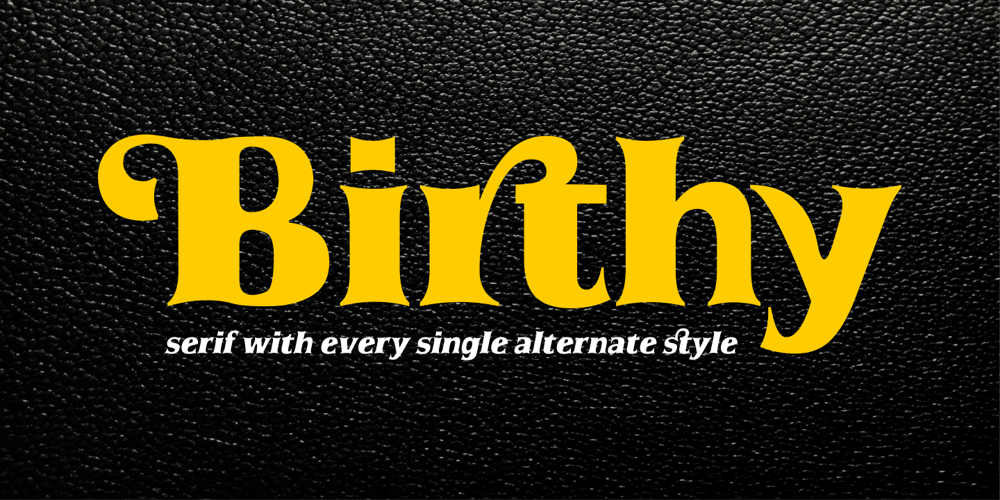
Birthy
Birthy font
Birthy Font Family was designed by Ahmad Zulfikar Ali and published by ZetDesign. Birthy contains 2 styles and family package options. Birthy is a serif font that comes with an alternate style for each letter unit, this allows you to choose the shape you want. This font is made to be used in every situation, both formal and informal and is available in 2 regular and italic styles with over 300 glyphs in each style. Make your creations more awesome with BIRTHY font … have fun creating …